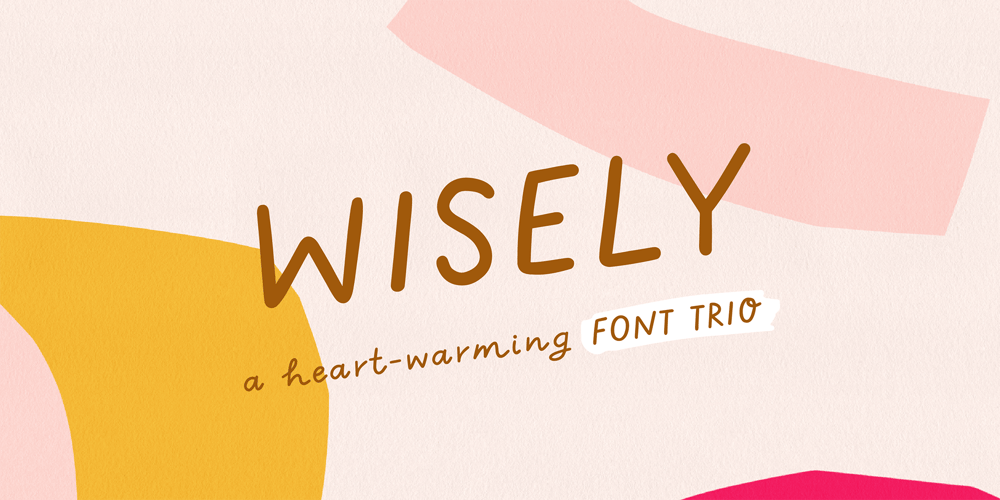
Wisely Font Family was designed by Monika Drachal and published by Mili + Wise. Wisely contains 3 styles and family package options. Perfect for writing out uplifting quotes for instagram posts, wall art or greeting cards. It will also be there for you if you need to design some charming packaging or branding. Suitable for short and sweet quotes, as well as longer meaningful paragraphs. Designed and kerned with care and love to make using it a breeze.Wisely is packed with lovely features: contextual alternates to give the text this hand-written look you need many stylistic alternates for uppercase and lowercase ligatures multilingual support with accented characters for international designers